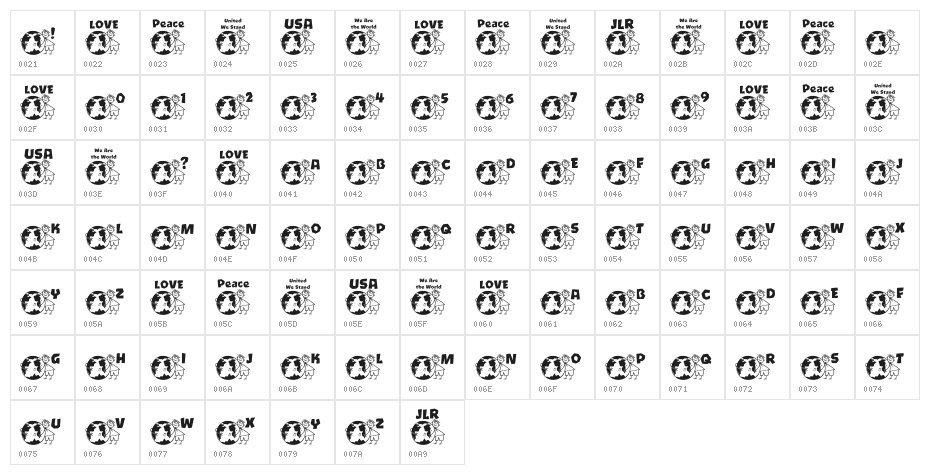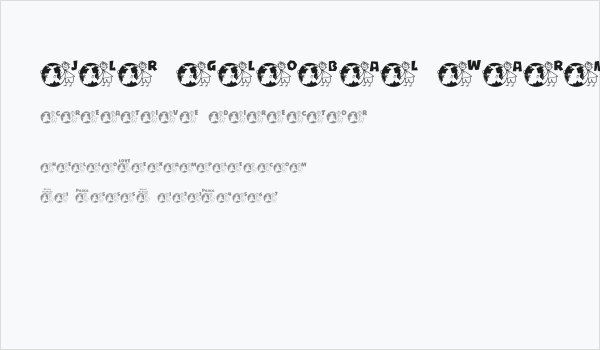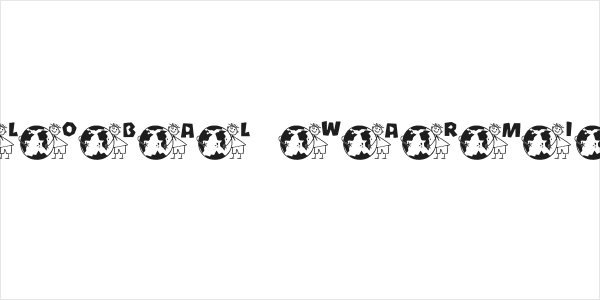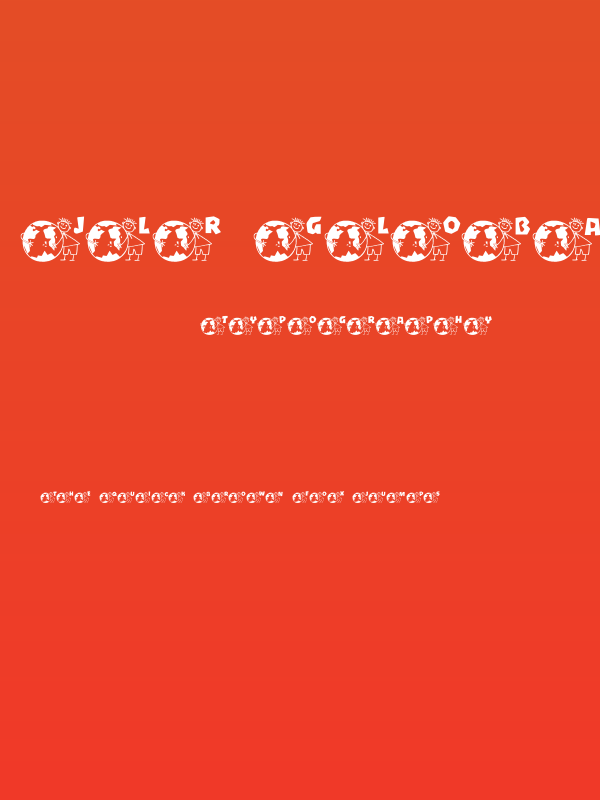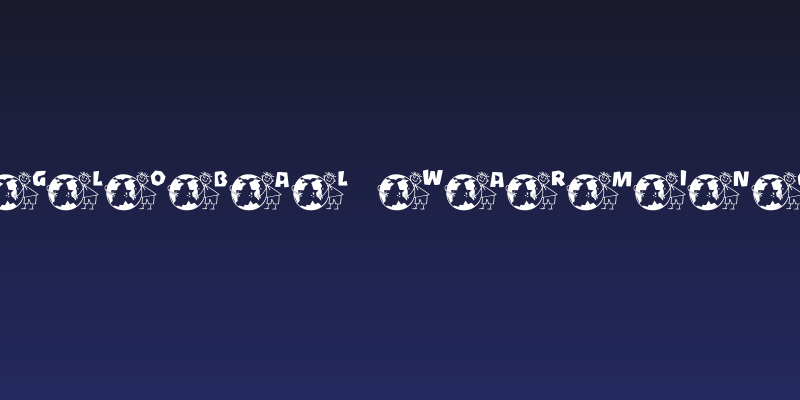
JLR Global Warming LSF Font
JLR Global Warming LSF Description
This font features a unique and playful design where each character is enclosed within a globe, accompanied by a small figure. The letters and numbers are bold and easily distinguishable, making them stand out against the globe background. The style is whimsical and decorative, with a focus on environmental themes, as suggested by the globe motif. The font includes both uppercase and lowercase letters, numbers, and a selection of special characters. The overall appearance is engaging and eye-catching, suitable for projects that aim to convey a message of global unity or environmental awareness.
| Proposed Projects | Ideal for environmental campaigns, children's books, educational materials, and posters promoting global awareness. |